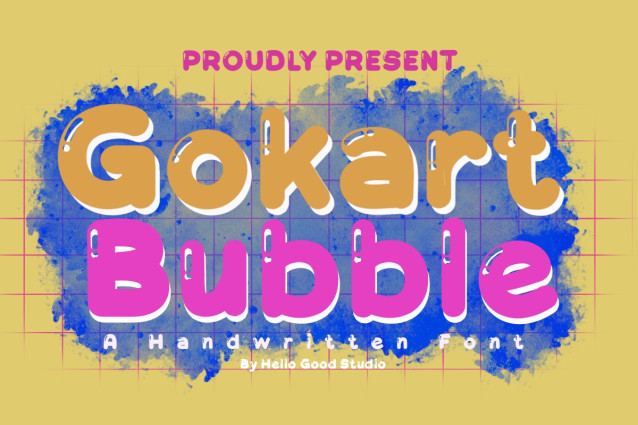
Gokart Bubble Font
Gokart Bubble Font a vibrant and energetic bubble display font designed to add a playful punch to your creative projects. With its rounded, chunky letterforms and shiny 3D highlights, Gokart captures the fun of a high-speed race and the whimsical charm of street art.
Whether you’re working on branding for kids, eye-catching posters, or trendy streetwear, this font brings a bold and friendly personality that’s impossible to miss.”